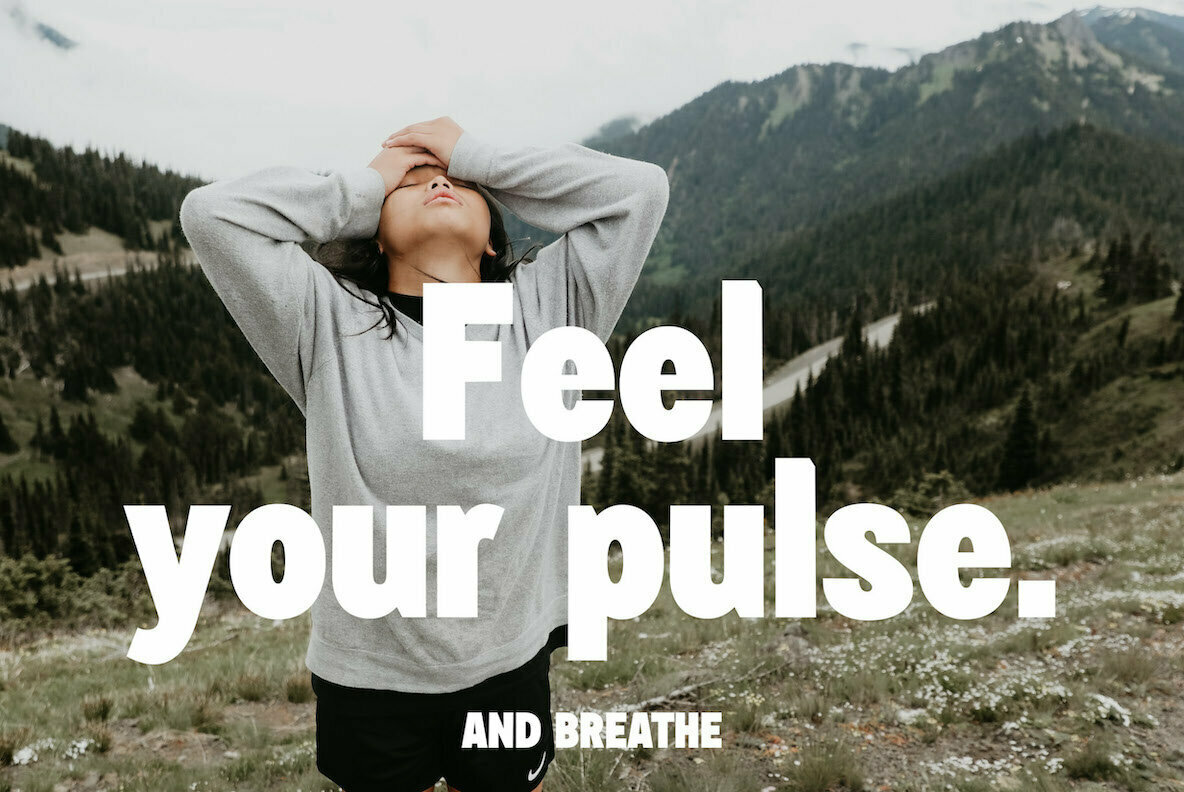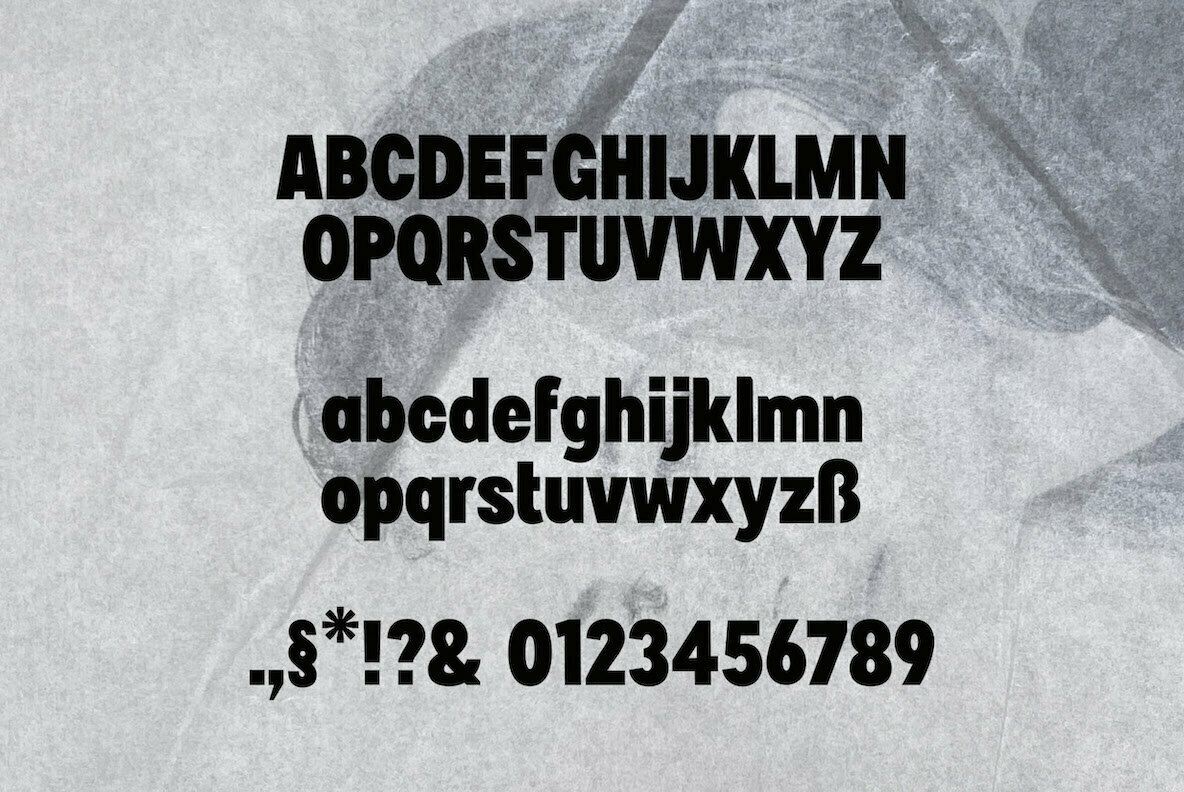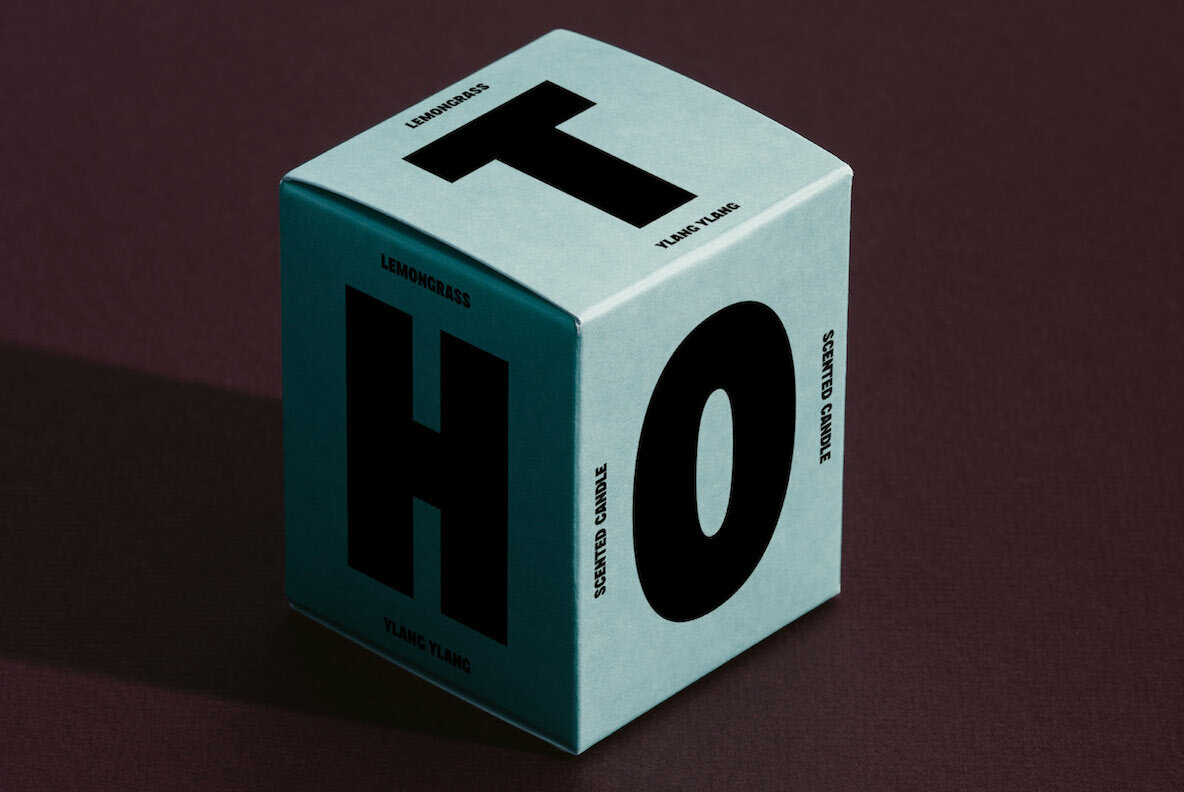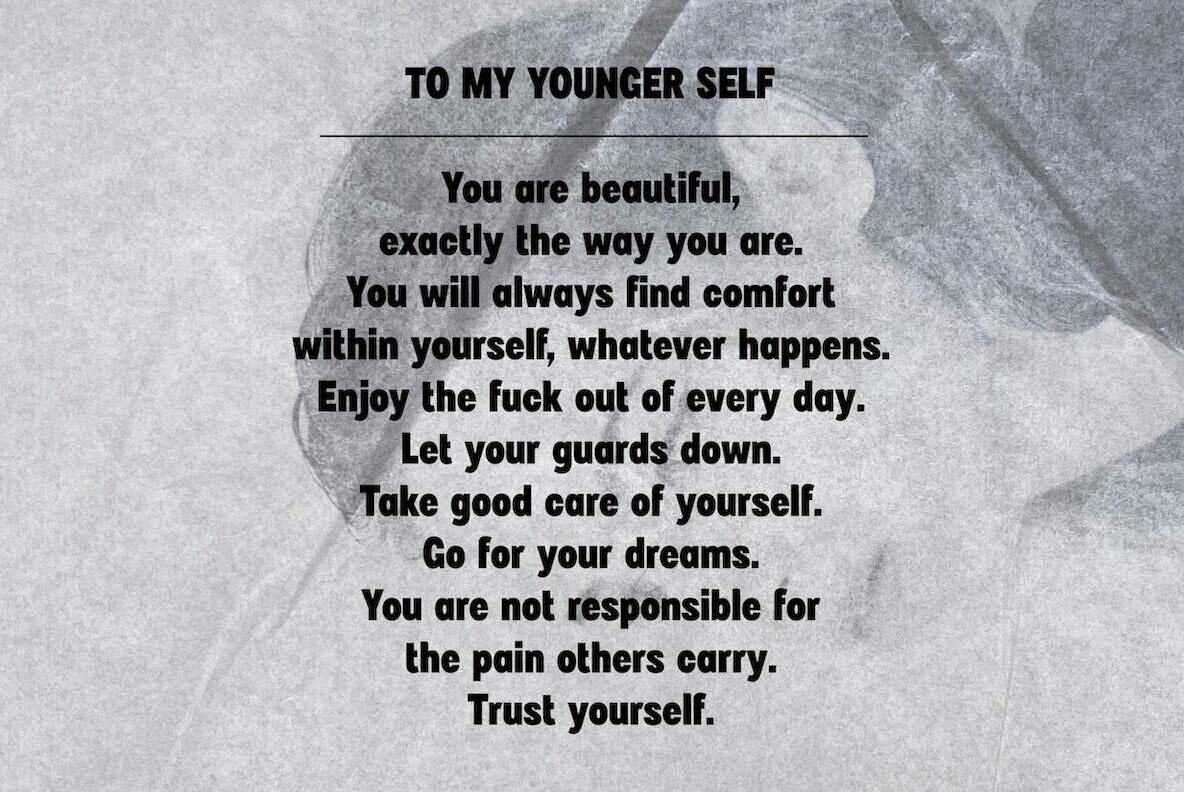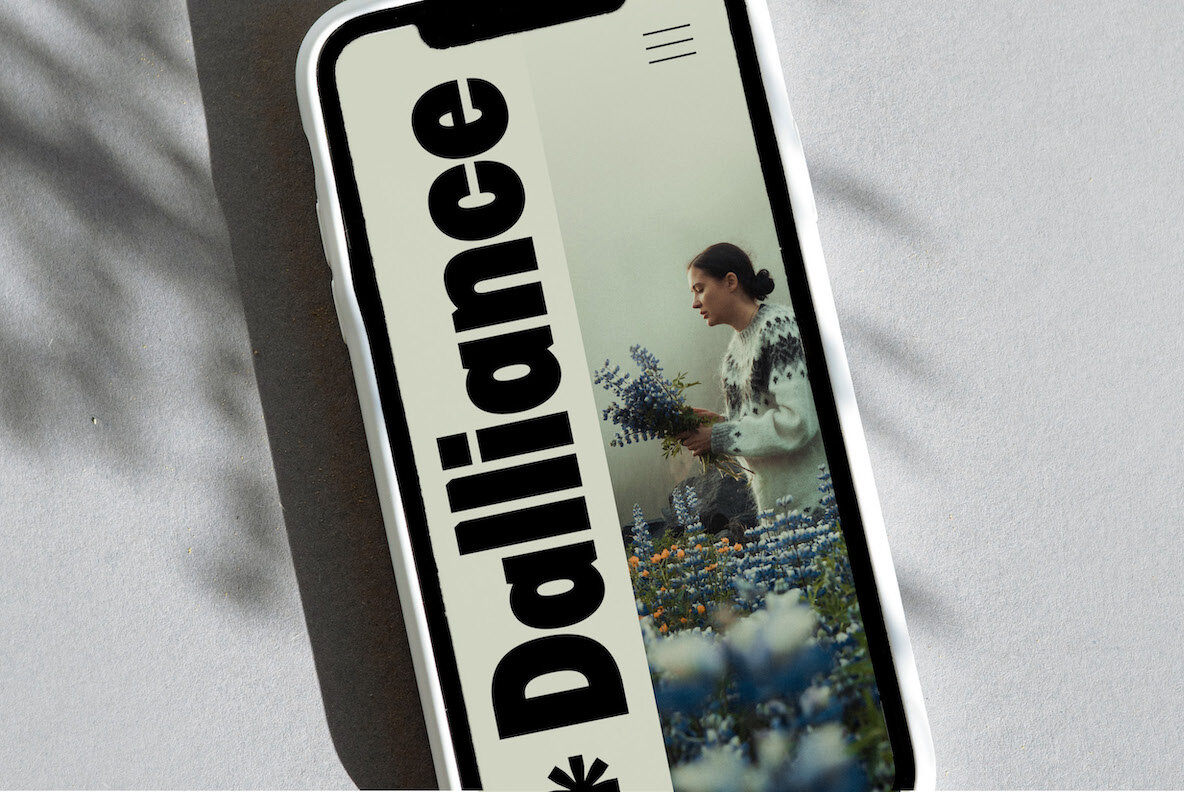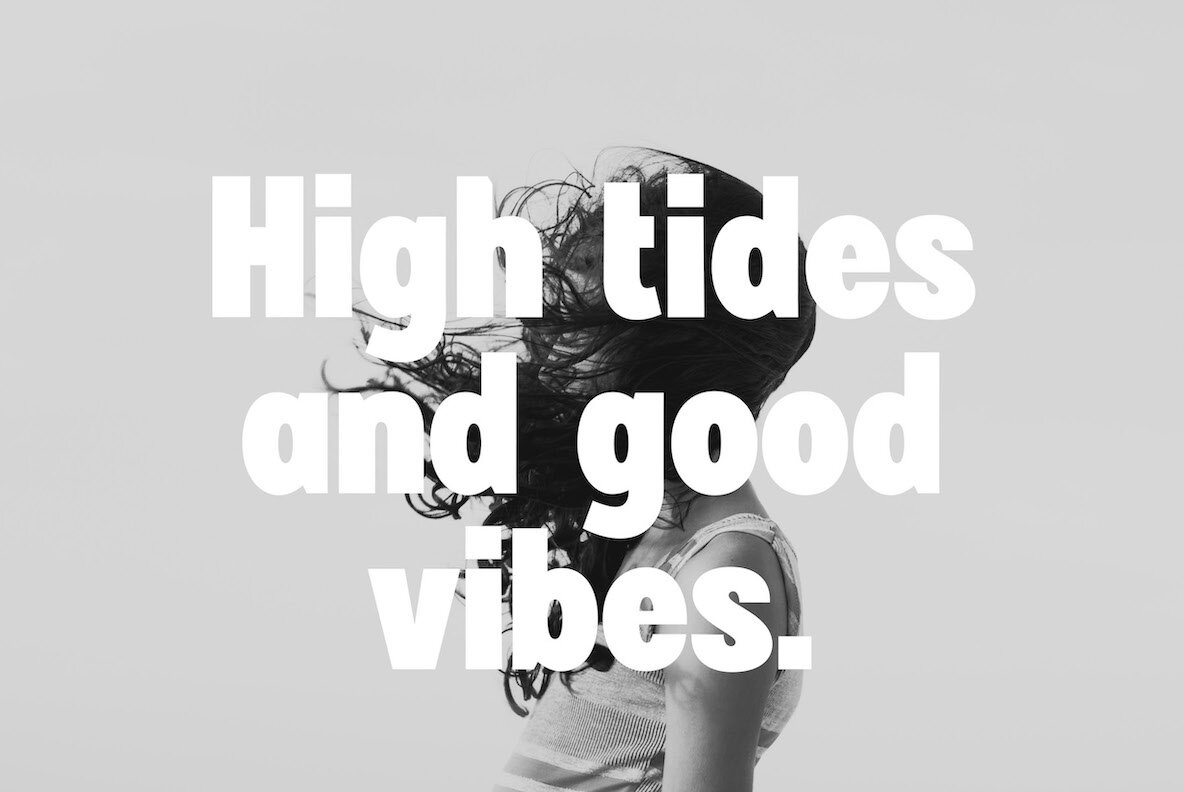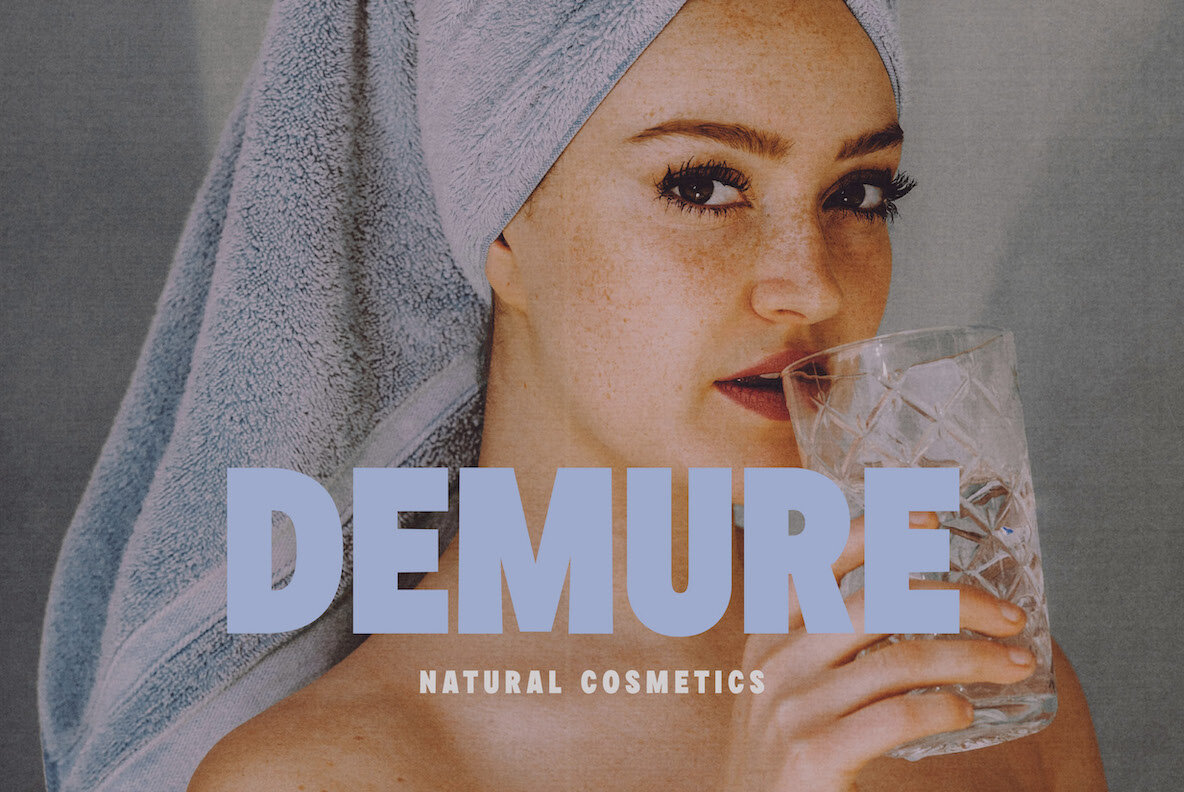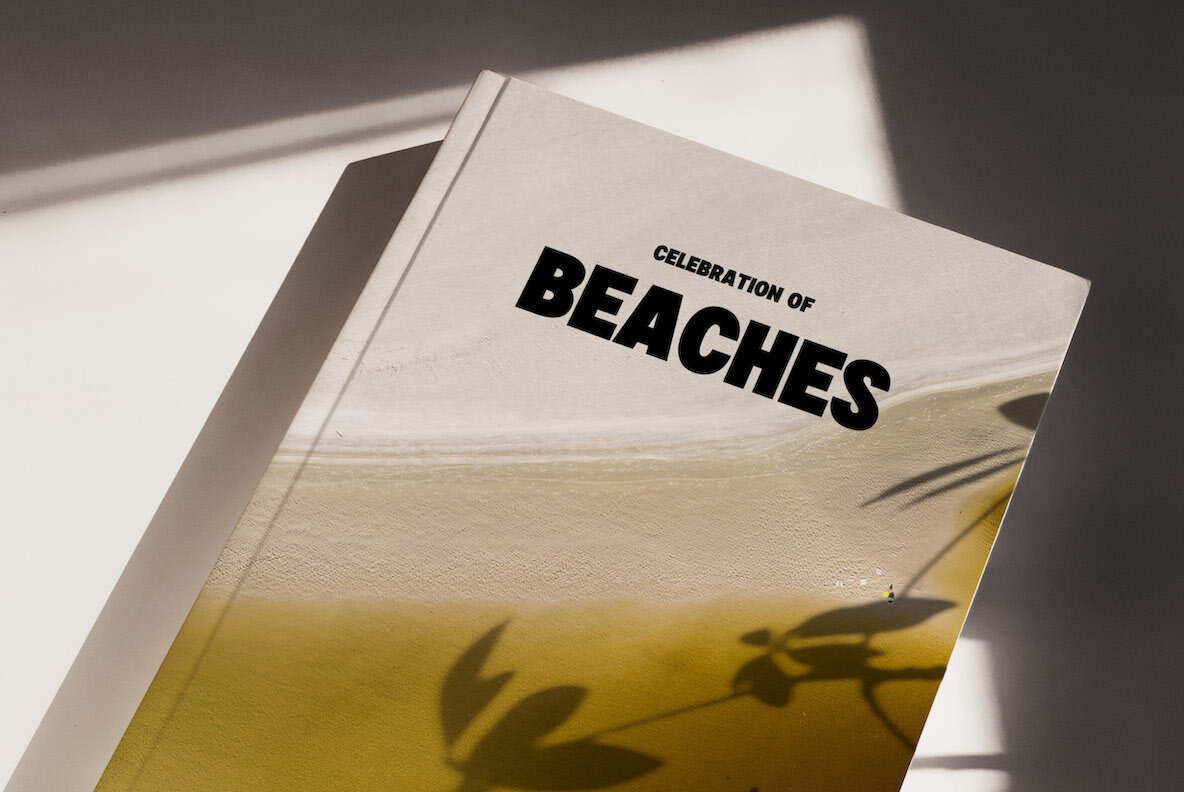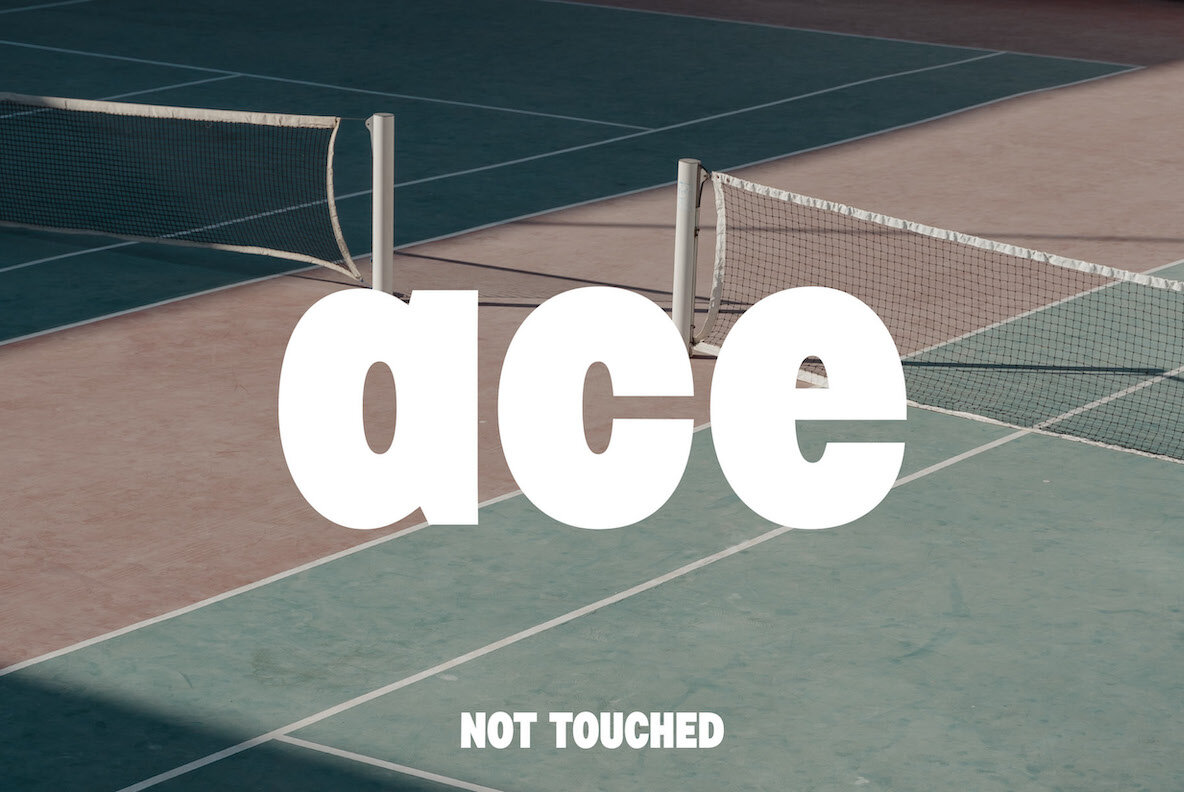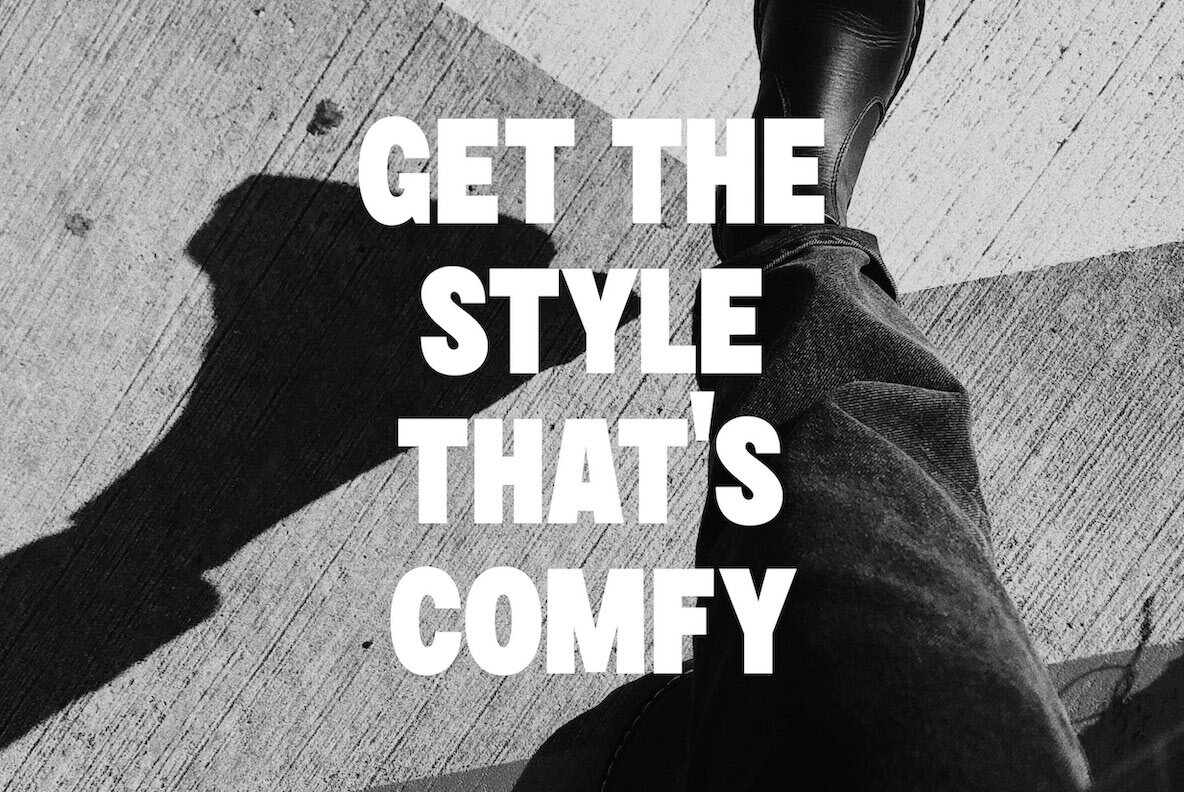
Gresham Font
Gresham Regular
Gresham is a gentle, bold sans serif typeface with a condensed vibe. It is perfectly suited for designing recognizable & modern brands, contemporary packaging, bold statements, websites and so much more!
- Full Upper- and Lowercase Alphabet
- Numbers + Basic Punctuation + Basic Symbols
- Non-English support